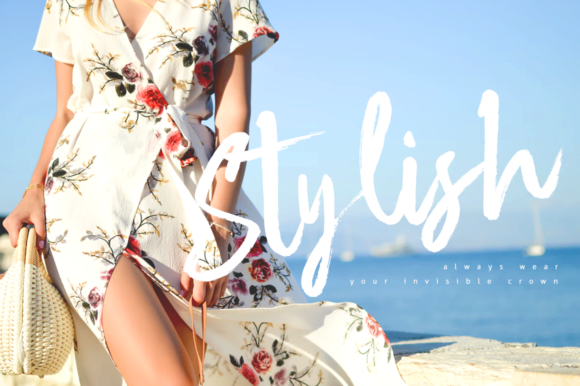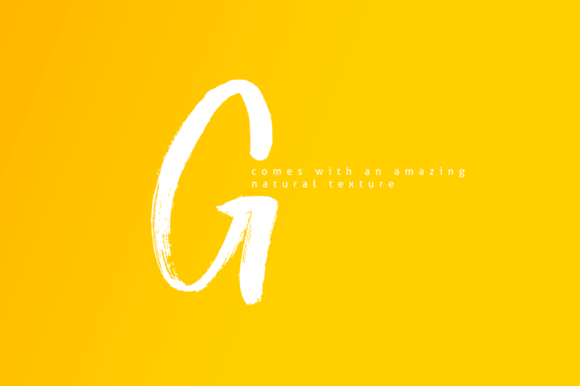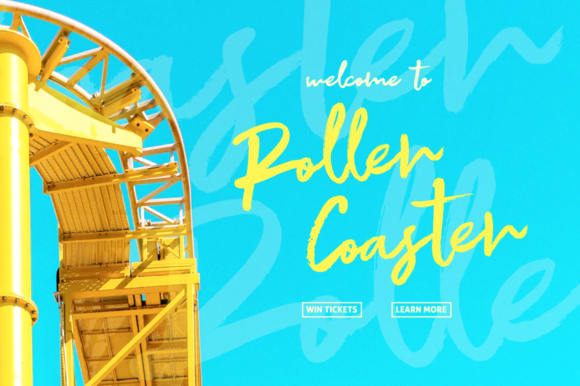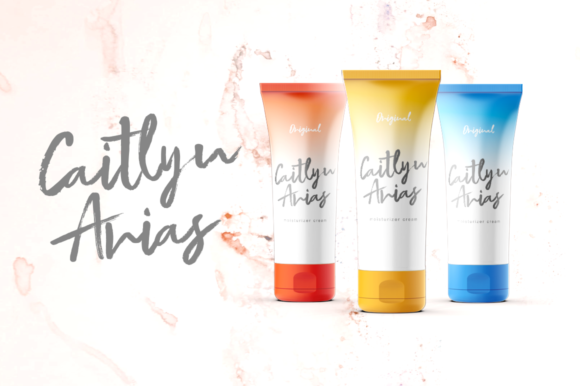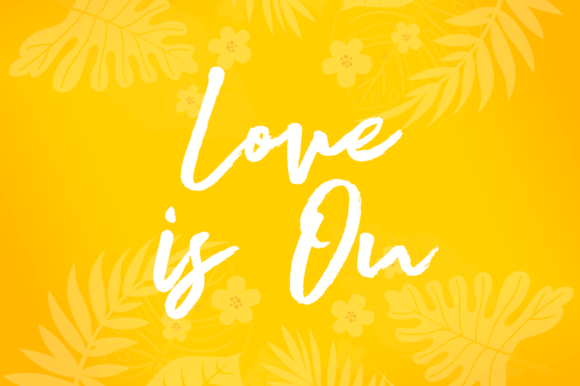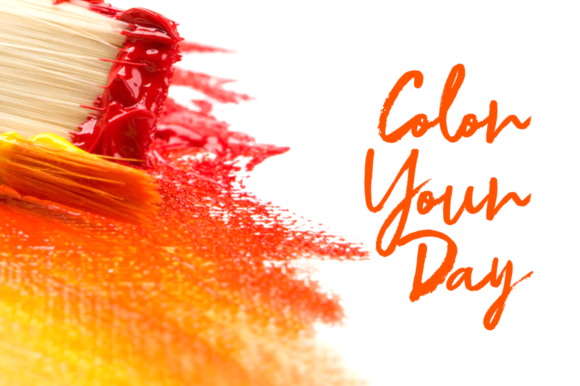
Introducing Grades Font: The Perfect Handwritten Touch for Your Design Projects
Are you tired of using the same old fonts for your design projects? Do you want to add a touch of excitement and personality to your creations? Look no further than Grades Font, a beautifully crafted font with a natural handwritten touch that’s perfect for a wide range of design applications.
What is Grades Font?
Grades Font is a unique and versatile font that’s designed to bring a sense of warmth and approachability to your designs. With its amazing natural handwritten touch, this font is sure to capture the attention of your audience and leave a lasting impression. Whether you’re working on a branding project, a marketing campaign, or a personal craft project, Grades Font is the perfect choice.
Key Features of Grades Font
• Natural Handwritten Touch: Grades Font has a beautifully crafted handwritten touch that’s perfect for adding a personal touch to your designs.
• Versatile: This font is suitable for a wide range of design projects, from branding and marketing to crafting and DIY projects.
• Easy to Read: Grades Font is clear and easy to read, making it perfect for body text and headings.
• Unique: With its unique handwritten style, Grades Font is sure to stand out from the crowd and add a touch of excitement to your designs.
Grades Font is a dream come true for designers and crafters who want to add a personal touch to their projects. Whether you’re creating a brand identity, designing a marketing campaign, or crafting a handmade project, this font is sure to inspire your creativity. With Grades Font, you can:
• Create stunning brand identities that reflect your brand’s personality
• Design eye-catching marketing materials that grab attention
• Add a personal touch to your handmade projects, such as journals, cards, and scrapbook pages
• Experiment with different design styles and techniques to create unique and captivating designs
Tips for Using Grades Font
To get the most out of Grades Font, here are a few tips to keep in mind:
• Use it as a headline font: Grades Font is perfect for headlines and titles, where its unique handwritten style can really shine.
• Pair it with other fonts: Experiment with pairing Grades Font with other fonts to create a unique and visually appealing design.
• Play with colors: Grades Font looks great in a variety of colors, so don’t be afraid to experiment and find the perfect color scheme for your design.
• Use it in digital and print designs: Grades Font is versatile enough to be used in both digital and print designs, making it perfect for a wide range of applications.
Whether you’re a seasoned designer or a crafty DIY enthusiast, Grades Font is sure to inspire your creativity and take your designs to the next level. So go ahead, get creative, and see what amazing things you can create with Grades Font!